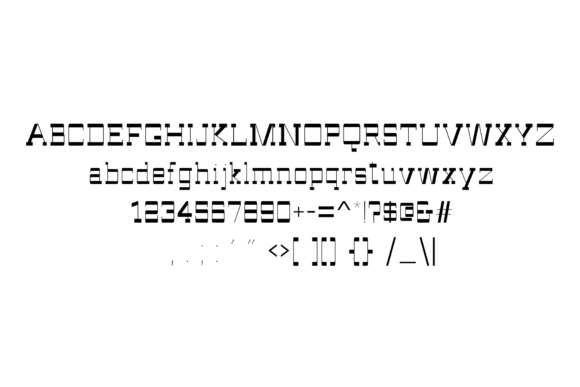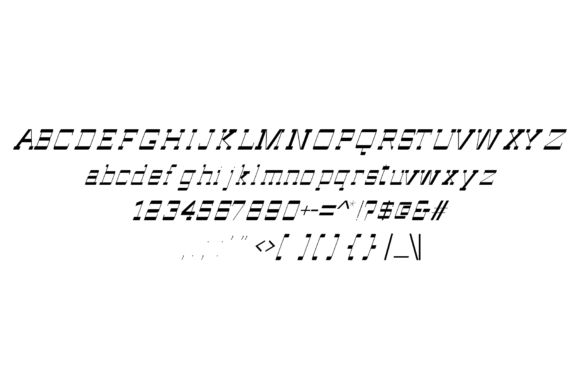
Notchie Font
NOTCHIE FONT SPECIMEN
Notchie is a clean, elegant, modern typeface that you can use in packaging or branding, creating beautiful logos, headlines, quotes, and any other printed matter. Add it confidently to your favorite creations and let yourself be amazed by the outcome generated.